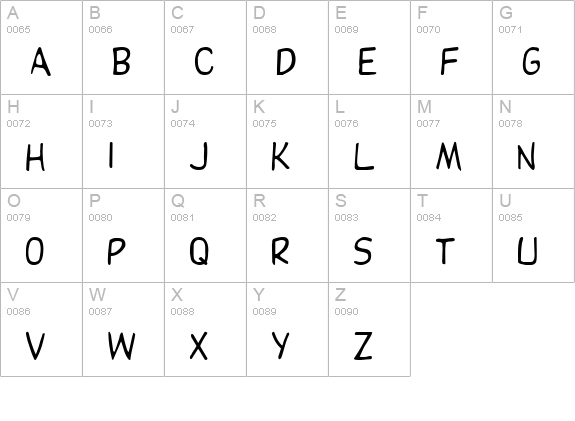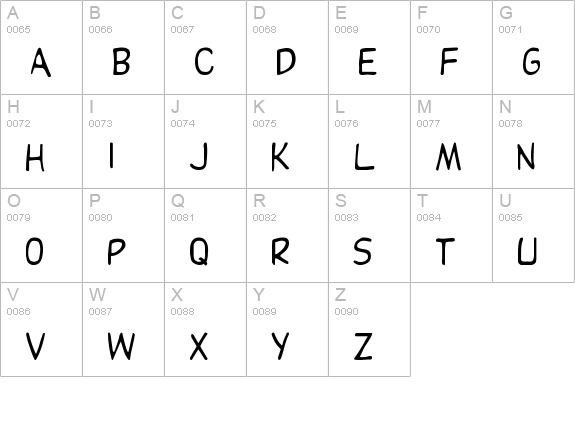
Dupuy font is a classic and elegant typeface that exudes sophistication and charm. With its stylish curves and clean lines, this versatile font is perfect for a wide range of design projects, from wedding invitations to branding materials. Its timeless appeal makes it a popular choice for designers looking to add a touch of elegance to their work. What's even better is that Dupuy font is available for free download at FontsMarket.com. This means that you can easily access this beautiful font and use it in your projects without any cost. Whether you're a seasoned designer or just starting out, Dupuy font is a fantastic addition to your font collection. Download it today and elevate your designs with its classic beauty and timeless style.